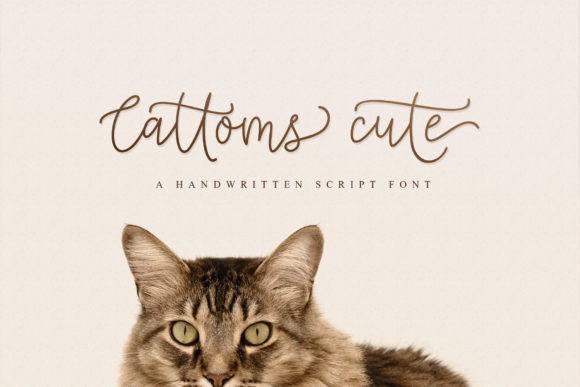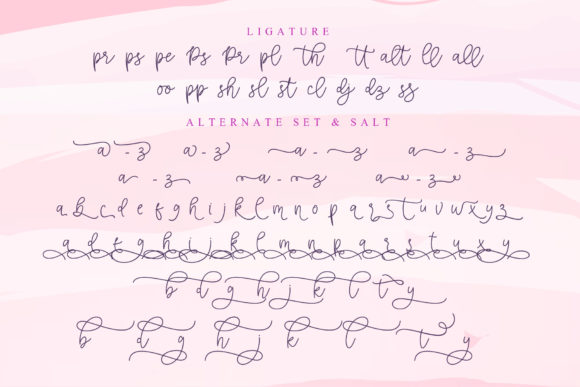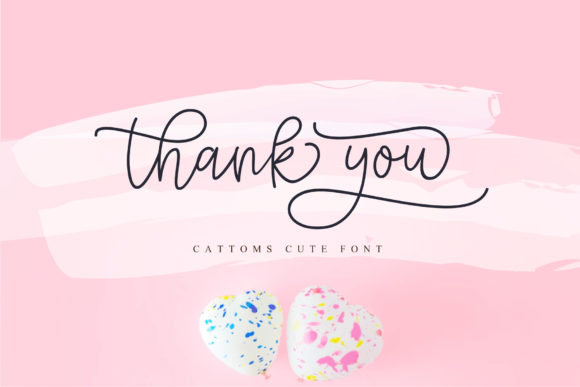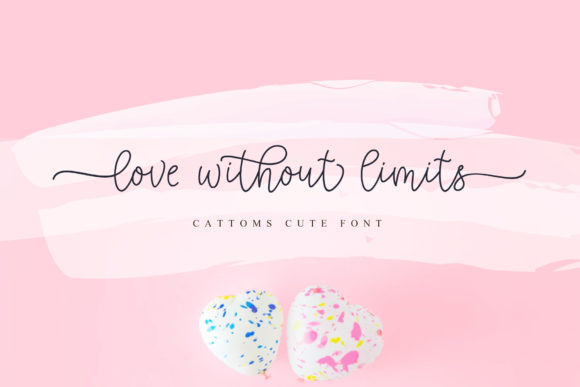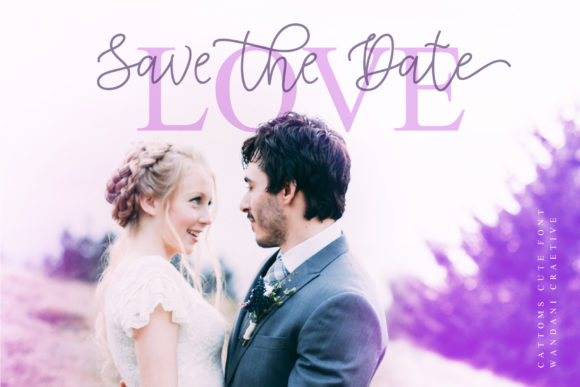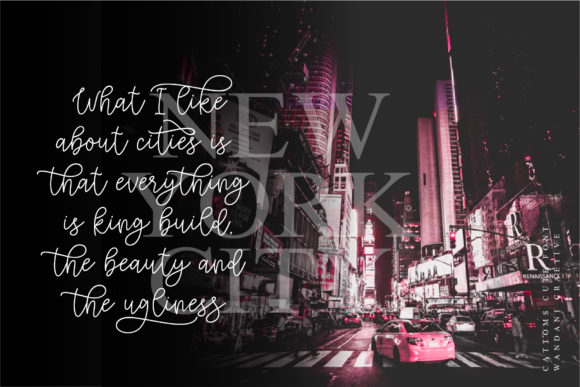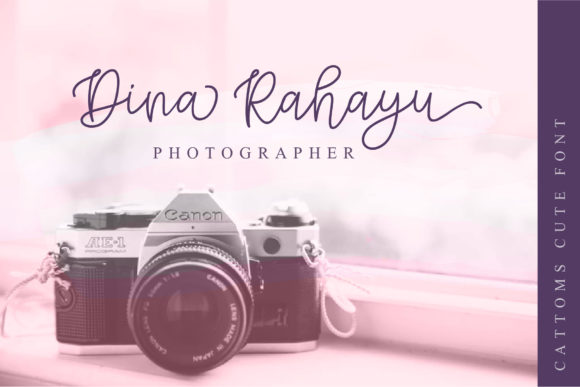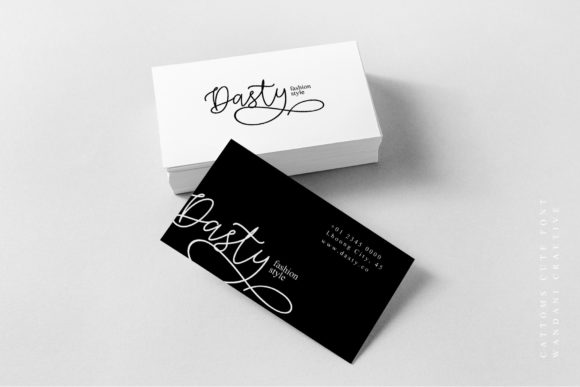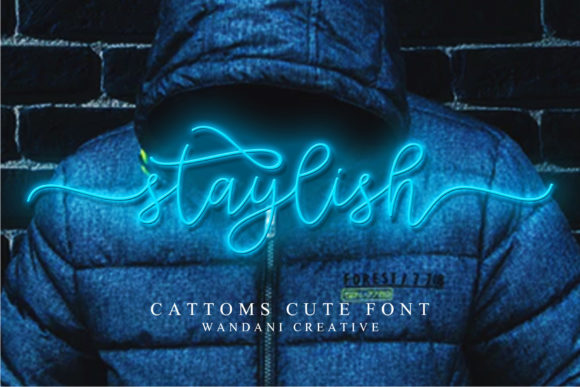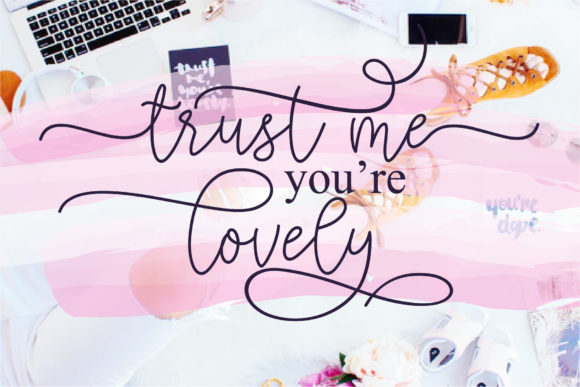
Cattoms Cute Font
About Cattoms Cute Font
Miao! Cattoms Cute is an adorable handwritten font with a cute and whimsical feel. Fall in love with its delicate and authentic charm and extensive set of unique characters.